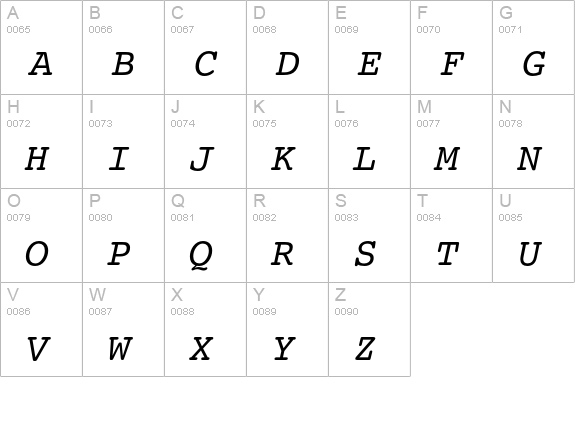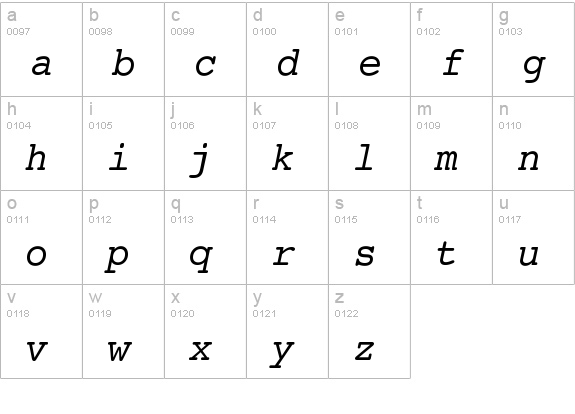
Courier 10 Pitch Italic Font Details
Courier 10 Pitch Italic is a distinctive, italic variant in the Courier typeface family \xE2\x80\x94 well suited to design and typography projects.
Courier 10 Pitch Italic is a classic and versatile font that exudes elegance and professionalism. With its sleek slanted appearance, this font is perfect for adding a touch of sophistication to any design project. Whether you're creating a formal document or a stylish invitation, Courier 10 Pitch Italic is sure to make a statement. What's even better is that this fantastic font is available for free download at FontsMarket.com. That's right, you can easily access and use Courier 10 Pitch Italic without any cost. So why wait? Elevate your designs with this timeless and stylish font today!